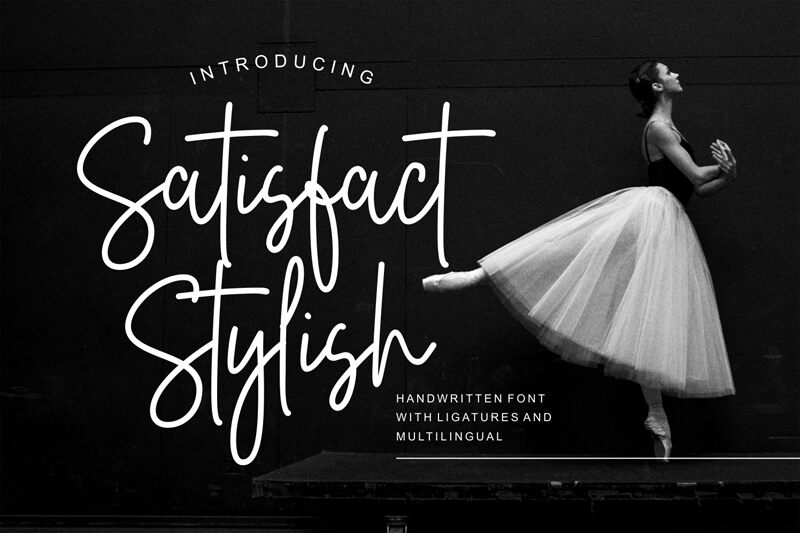
Satisfact Stylish
Satisfact Stylish emerges as a font that encapsulates elegance with its handwritten, signature style. Designed by Letternun, this typeface boasts an extra-light weight paired with a semi-condensed width, offering a delicate yet discernible presence on the page. The fluidity of its characters mimics the personal touch of ink on paper, making it ideal for invitations, branding, and personal correspondence that demand a bespoke feel.
The subtle sophistication of Satisfact Stylish lies in its ability to convey intimacy and authenticity through each stroke. It finds a balance between readability and artistic flair, ensuring that messages are not only seen but felt. This versatility makes Satisfact Stylish apt for designers who seek to infuse their projects with character and a hint of exclusivity. Whether it graces the cover of a novel or the logo of an upscale boutique, Satisfact Stylish is poised to leave an impression that is as lasting as it is graceful.